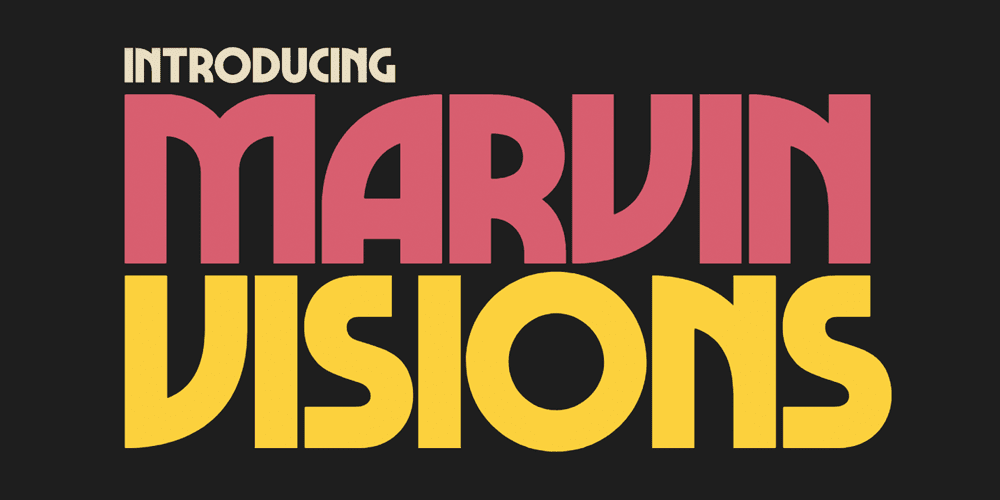
Marvin Visions Free Font (Bold, Uppercase)
Marvin Visions by Matthieu Triay is a more modern and consistent re-interpretation of Marvin typeface originally designed by Michael Chave in 1969. Unlike the original, this new design wants to be more sturdy and versatile. It has tight-not-touching default spacing, and it sports diacritics for most European languages as well as Cyrillic glyphs.
Marvin Visions Free Font